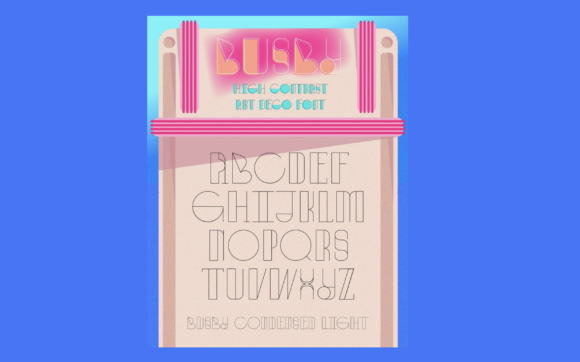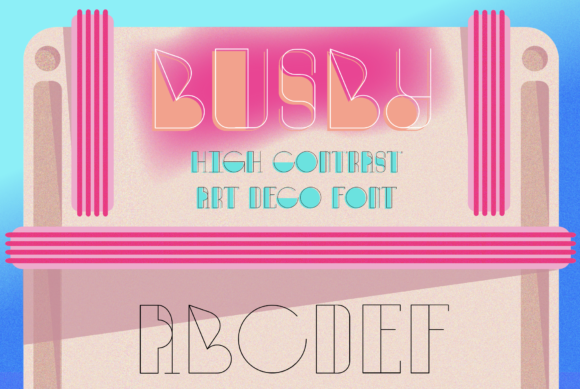
Introducing Busby Condensed Light Font: Elevate Your Designs with a Retro Twist
Are you on the hunt for a font that adds a cool, retro flair to your designs? Look no further than the Busby Condensed Light Font. This uniquely designed display font is perfect for crafters and designers seeking to infuse their projects with a standout element. Whether you’re working on t-shirt designs, sportswear, logos, advertisements, or any clothing and accessories, Busby is the ideal choice to make your creations pop.
The Charm of Busby Font
Busby is not just any font; it’s a statement piece. Its retro vibe is reminiscent of classic design eras, yet its uniqueness ensures it stands out in any contemporary setting. The condensed light version of Busby offers an elegant, yet bold presence that can transform any design project into something memorable. With Busby, you can say goodbye to mundane designs and hello to eye-catching creations that demand attention.
One of the key advantages of the Busby Condensed Light Font is its versatility. It’s a font that can be seamlessly integrated into various design projects. Here are a few ways you can utilize Busby to elevate your designs:
- T-Shirts and Apparel: Add a retro touch to your t-shirt designs, hoodies, and other apparel. Busby’s unique style ensures your designs stand out in a crowded market.
- Logos and Branding: Create memorable logos and branding materials. Busby’s distinctiveness makes it perfect for businesses looking to establish a unique identity.
- Advertisements: Use Busby to create eye-catching advertisements that capture the essence of your product or service. Its retro vibe can add a nostalgic feel to your ads, making them more engaging.
- Crafting and DIY Projects: If you’re into crafting or DIY projects, Busby can add a professional touch to your handmade goods, such as customized mugs, bags, and more.
Why Choose Busby Condensed Light Font?
There are several reasons why Busby Condensed Light Font should be your go-to choice for your next design project:
- Unique Style: Busby offers a fresh take on retro design, making it a unique addition to your font collection.
- Ease of Use: This font is easy to read and versatile, making it suitable for a wide range of applications.
- High Impact: The condensed light version of Busby is designed to make a statement. Its elegant yet bold presence ensures your designs leave a lasting impression.
- Customization: With Busby, you have the flexibility to experiment with different design elements, ensuring your final product is truly one-of-a-kind.
- Experiment with Sizes: Play around with different font sizes to see how Busby looks in various contexts.
- Color Selection: Choose colors that complement the retro vibe of Busby. Earth tones, pastels, and bold colors can work well.
- Pairing Fonts: If you’re using Busby alongside other fonts, ensure they complement its unique style. A simple, sans-serif font can create a nice contrast.